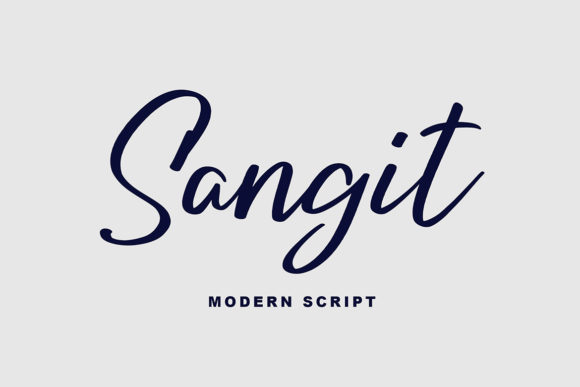
Sangit Font
**Introducing Sangit Font: The Enchanting Script for Unforgettable Impressions**
In the realm of typography, where words dance and meanings emerge, Sangit Font stands as a masterpiece – a captivating script that weaves magic into every letterform. Created by the talented formatikastd, Sangit embodies a harmonious blend of modernity and authenticity, promising to elevate your designs to new heights.
Sangit's allure lies in its intricate curves and dynamic strokes, each line a testament to the artist's passion. The letters flow effortlessly, creating a mesmerizing rhythm that draws the eye and captivates the mind. Whether you seek to craft elegant invitations, heartfelt letters, or eye-catching branding, Sangit's versatility knows no bounds.
With Sangit Font at your fingertips, you possess the power to transform ordinary text into extraordinary expressions of creativity. Its enchanting presence will add a touch of magic to your designs, making them stand out from the mundane and leaving an enduring impression.
Gone are the days of settling for fonts that merely convey words. Sangit Font is not just a tool; it's an extension of your imagination, a canvas upon which you can paint your dreams and aspirations. Let its enchanting melody guide your designs towards captivating new horizons.
**Embrace the Power of Sangit Font and Unleash Your Creative Potential**
* **Modern Elegance:** Sangit Font effortlessly combines the charm of traditional script with a distinctively modern aesthetic, resulting in a timeless typeface that transcends trends.
* **Unleash Your Creativity:** With its fluid strokes and graceful curves, Sangit Font provides endless opportunities for artistic expression. Let your imagination soar and create captivating designs that resonate with your unique vision.
* **Versatile Charm:** Sangit Font adapts seamlessly to a wide range of design projects. From delicate invitations to bold branding, its versatility knows no bounds.
* **Express Yourself Authentically:** Sangit Font's authentic character shines through in every letterform, allowing you to convey your message with sincerity and depth.
* **Leave an Unforgettable Impression:** Whether in print or on screen, Sangit Font commands attention and leaves a lasting impact. Its enchanting presence will ensure your designs are remembered long after they are seen.
Don't let your designs settle for mediocrity. Embrace the power of Sangit Font and unlock a world of creative possibilities. Let its enchanting script weave its spell on your words, captivating your audience and leaving an enduring legacy of beauty and impact.